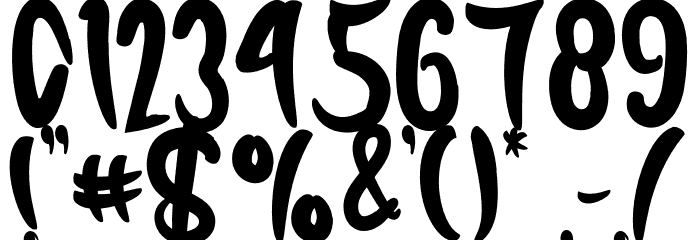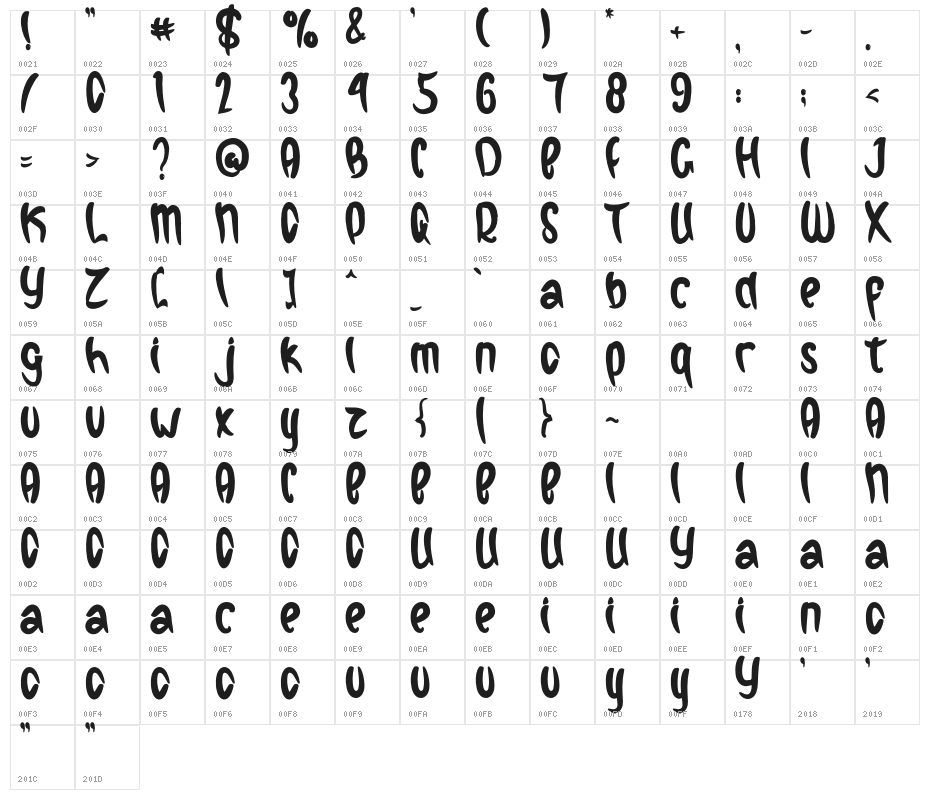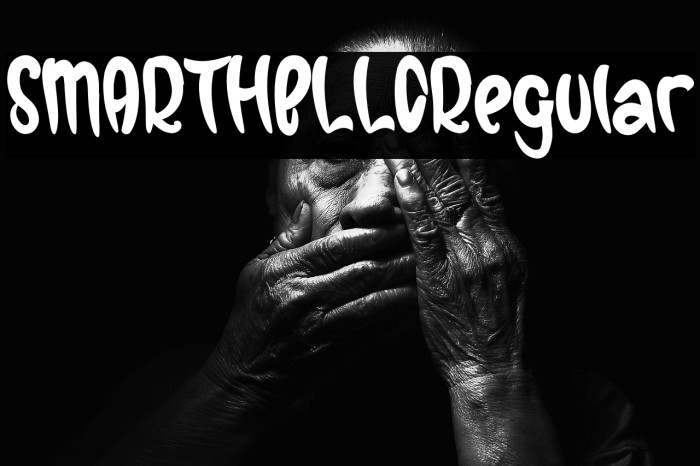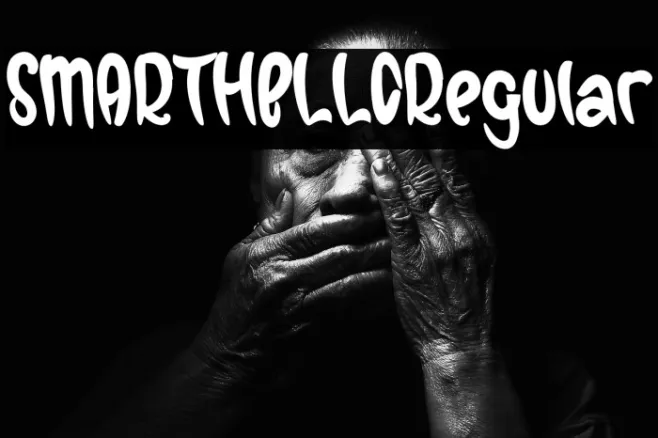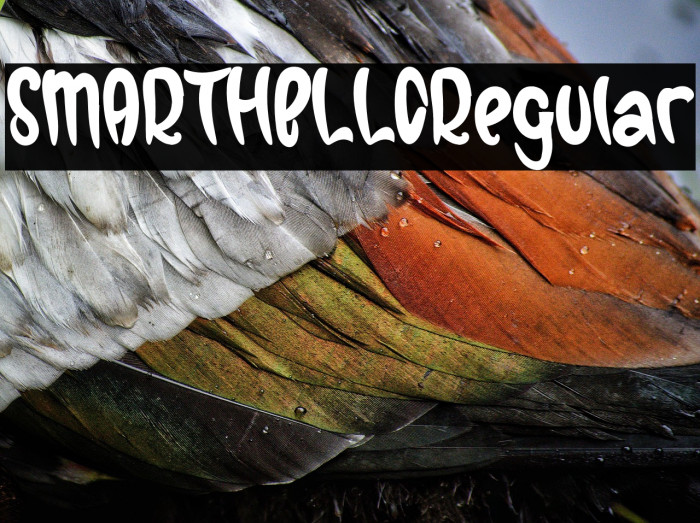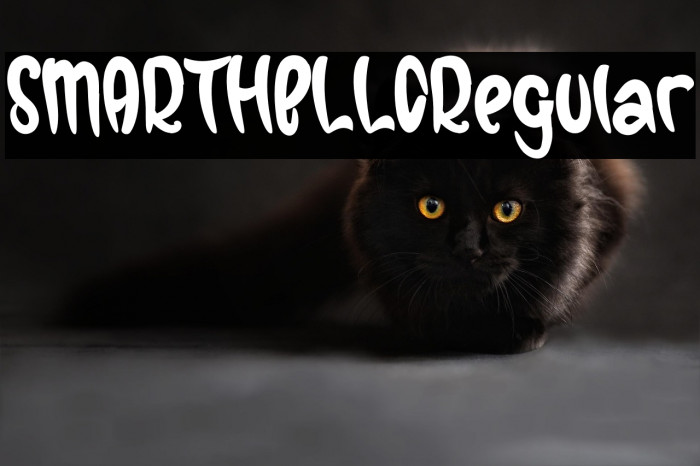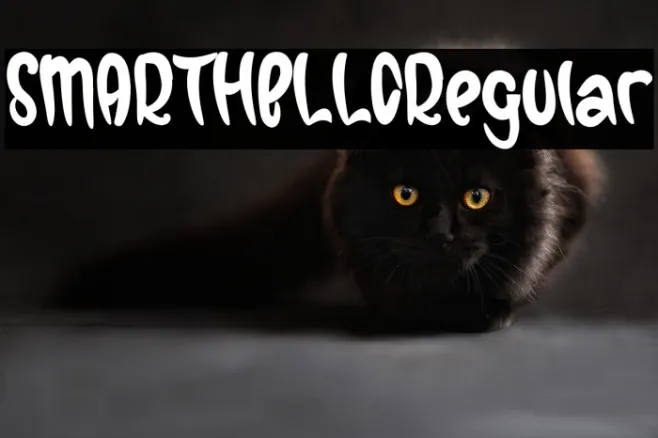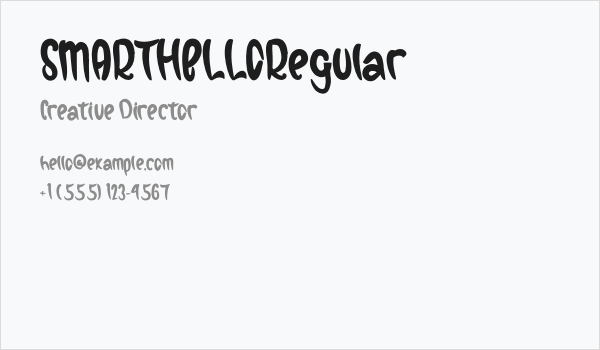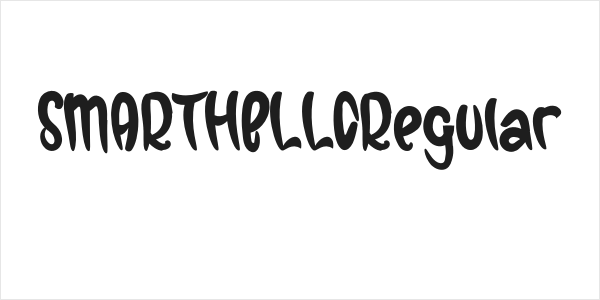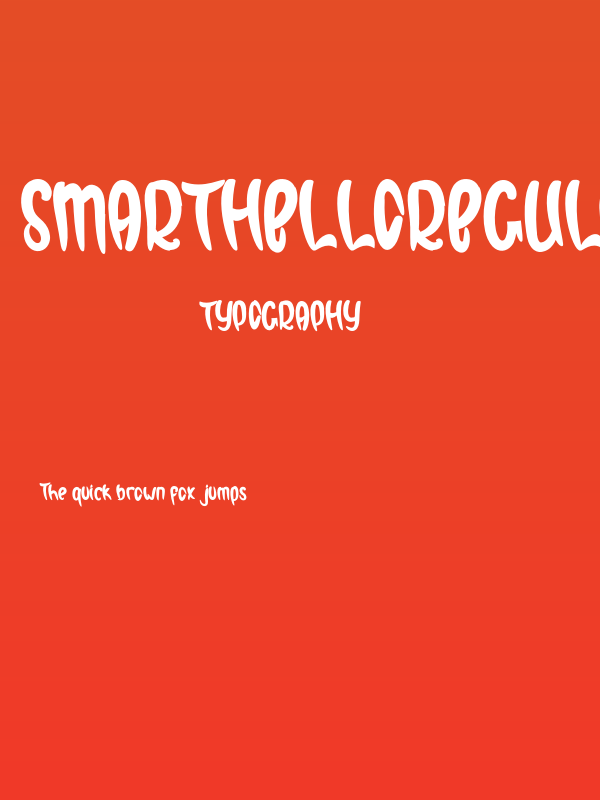
SMARTHELLORegular Font
SMARTHELLORegular Description
This font features a playful and bold handwritten style, characterized by its thick, rounded strokes and whimsical curves. The uppercase and lowercase letters maintain a consistent flow, with a slightly exaggerated height that adds to its charm. The numbers and special characters follow the same playful aesthetic, making it suitable for creative and informal designs. Its unique style is eye-catching and conveys a sense of fun and creativity, ideal for projects that aim to stand out with a friendly and approachable vibe.